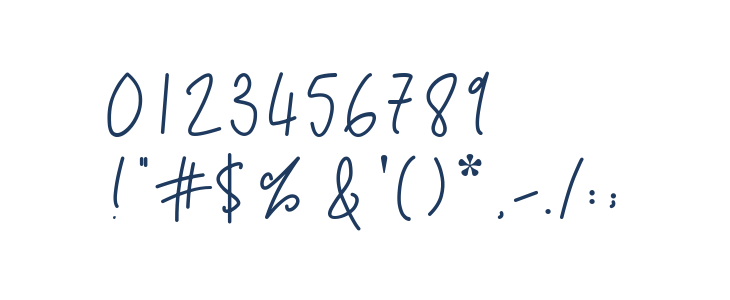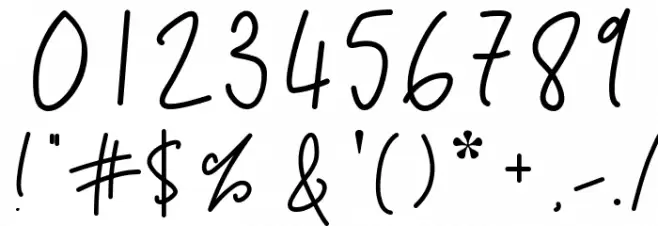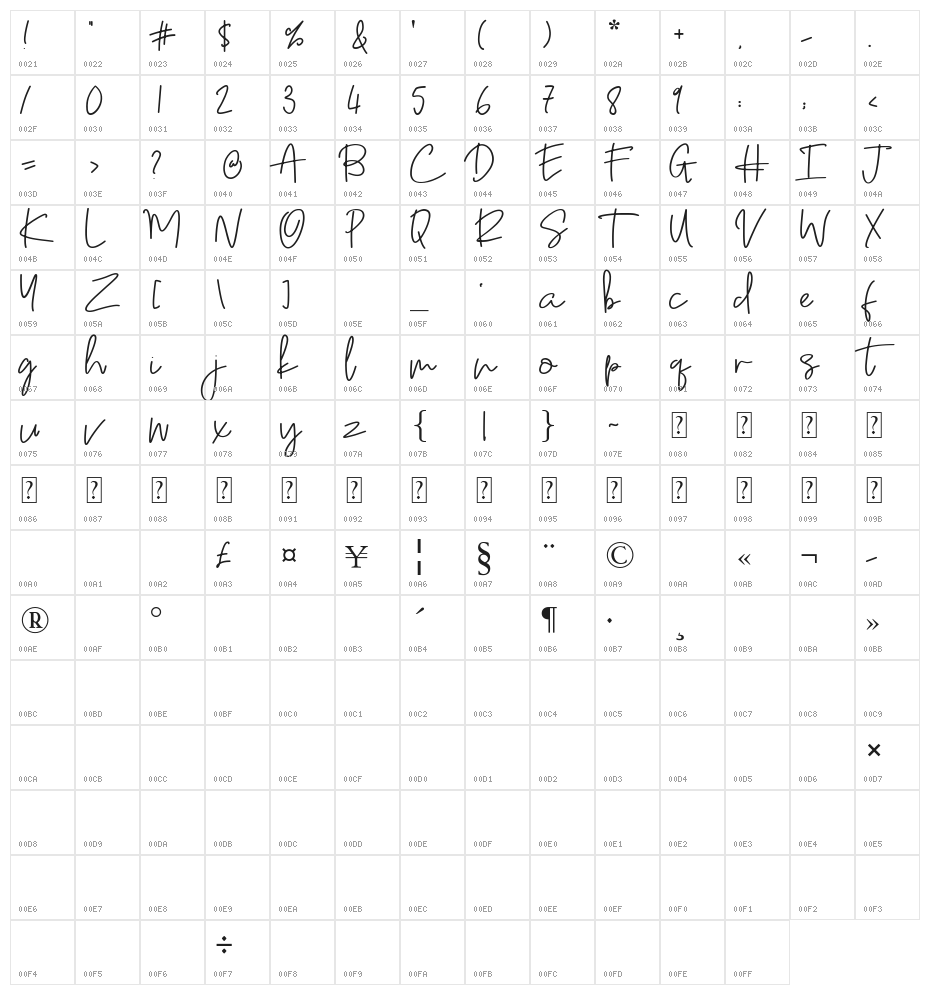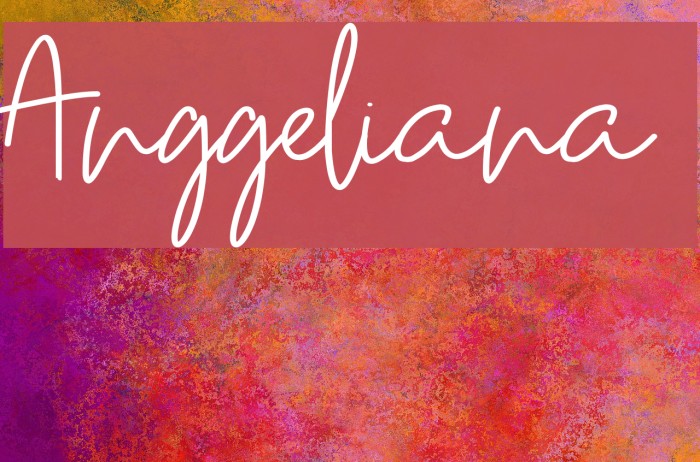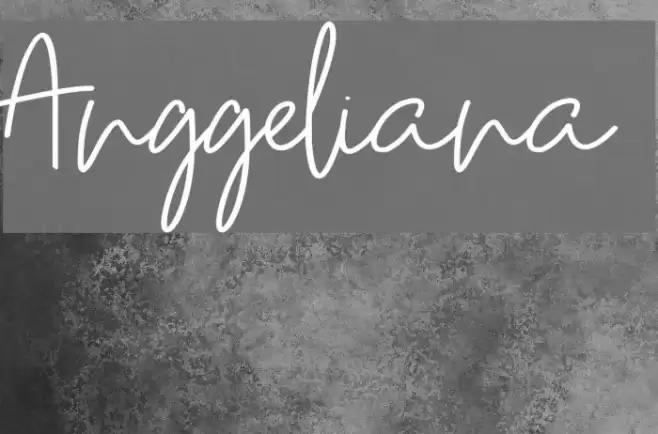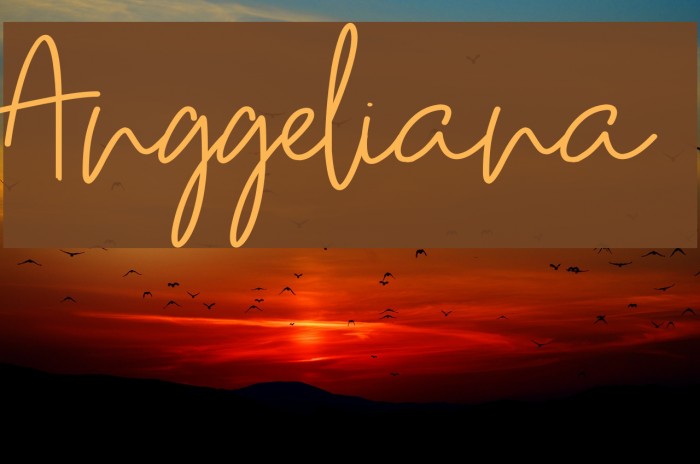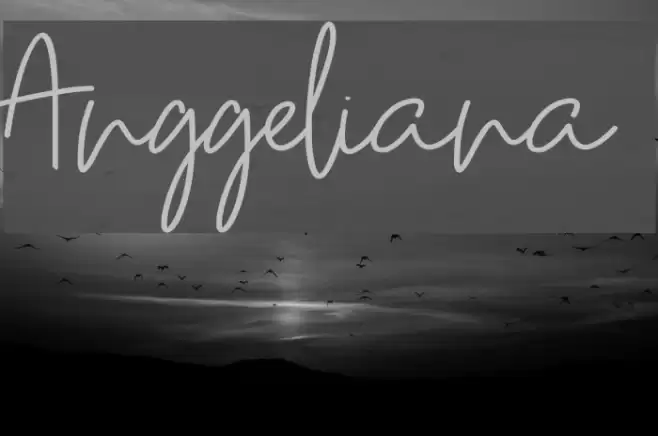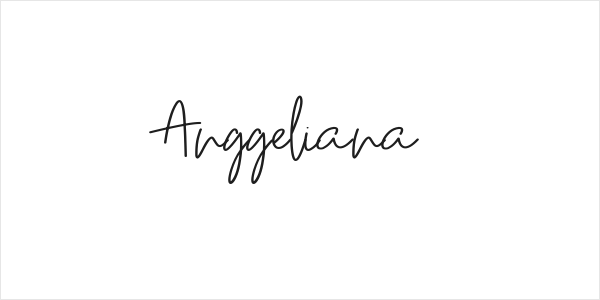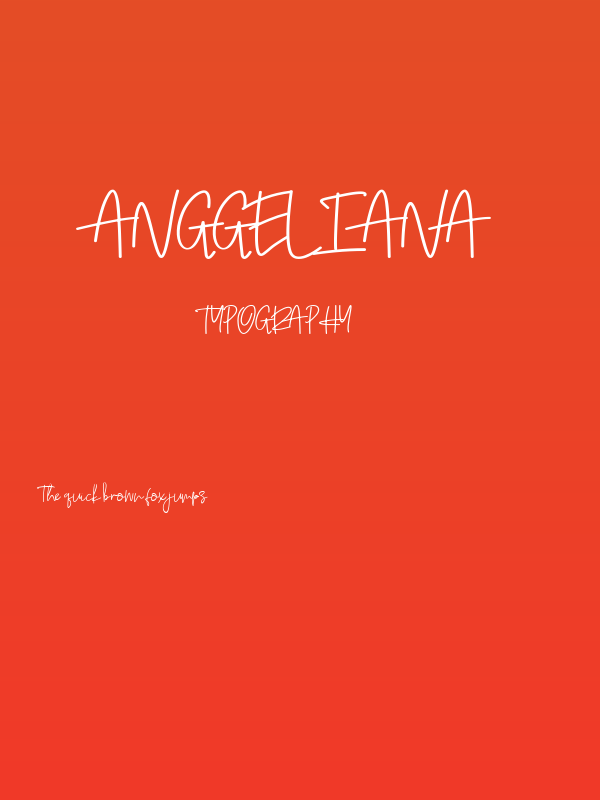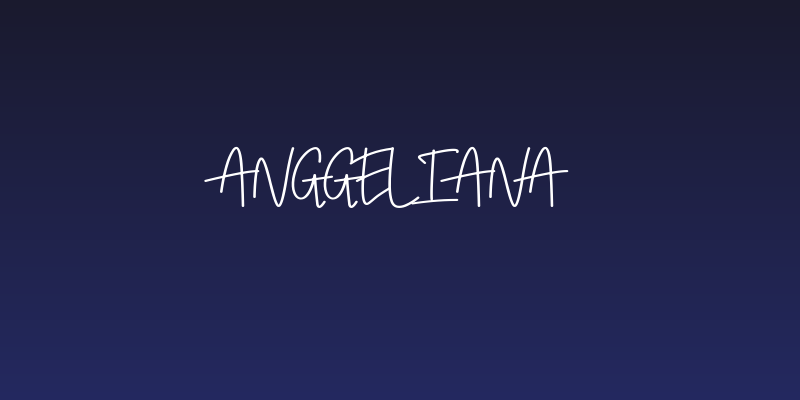
Anggeliana Font
Anggeliana Description
This font exudes a casual and spontaneous handwritten style, characterized by its fluid and continuous strokes. The uppercase and lowercase letters maintain a consistent flow, giving the impression of natural handwriting. The characters are slightly slanted, enhancing the informal and personal touch. The numerals and special characters follow the same style, ensuring uniformity across all elements. This font is perfect for projects that require a personal or artistic flair, such as invitations, greeting cards, or creative branding.
| Overall Style | Casual, Artistic |
| Use Case | Headlines, Artistic projects, Personal branding |
| Proposed Projects | Ideal for invitations, greeting cards, personal branding, and artistic projects. |